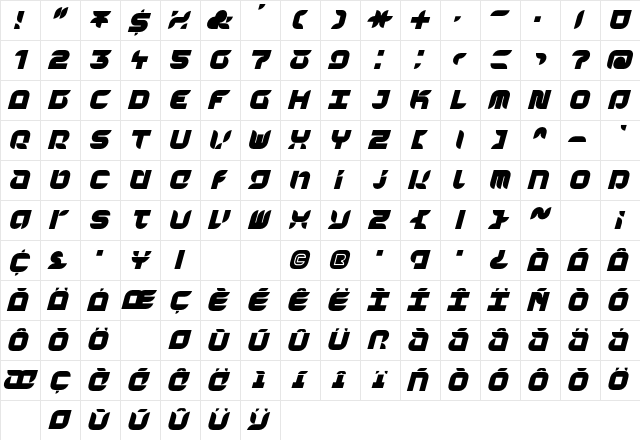
Yr72 BoldItalic
Design Context for Yr72
Yr72 is a composed and adaptable typeface that performs quietly and consistently across a wide range of design contexts. The slanted form adds forward momentum and visual energy. Its bold stroke weight gives it real presence on the page.
Pro Tip: Use Yr72 for emphasis, pull quotes, and subheadings where its slanted energy can add rhythm to the layout.